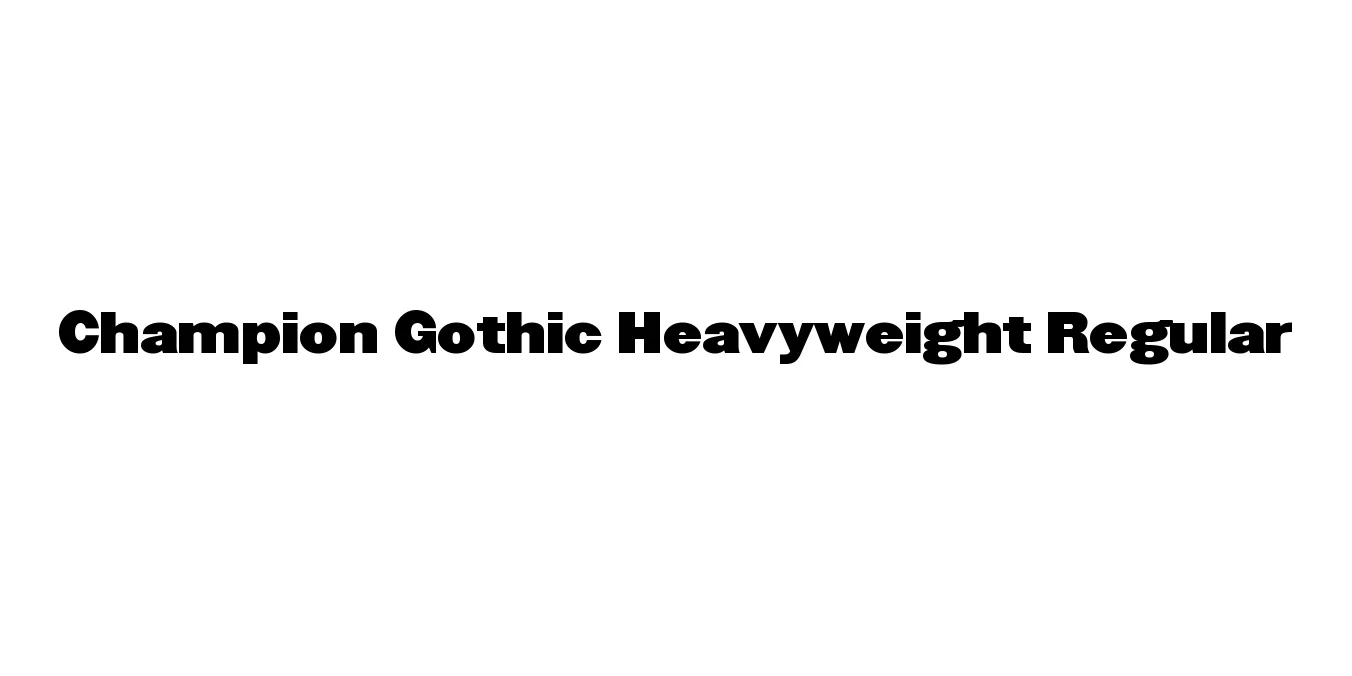
Champion Gothic Heavyweight Regular
Designed by Jonathan Hoefler
Champion Gothic Heavyweight Regular is a seminal typeface designed by Jonathan Hoefler in 1990. Originally commissioned for Sports Illustrated magazine, this font family was inspired by the eclectic and rugged character of 19th-century American wood type. It broke traditional design conventions by offering a wide array of weights and widths, ranging from Bantamweight to Heavyweight, allowing designers to navigate the complex layout demands of high-energy editorial content.
The Heavyweight variant is particularly celebrated for its immense visual presence and authoritative structure. It expertly balances the charm of vintage woodblock printing with the clean, mechanical precision of modern digital typography. Today, it remains a gold standard for sports branding and display typography, providing a sense of strength and timelessness that few other sans-serif families can replicate.
Champion Gothic Heavyweight Regular Best Uses
Used extensively for player jersey numbering and dynamic broadcast graphics.
Perfect for bold magazine covers and high-impact newspaper headlines.
Ideal for large-scale event posters and cinematic promotional materials.
Great for creating powerful identities for industrial or athletic brands.